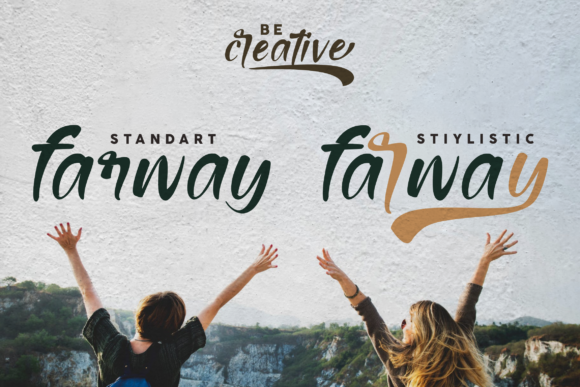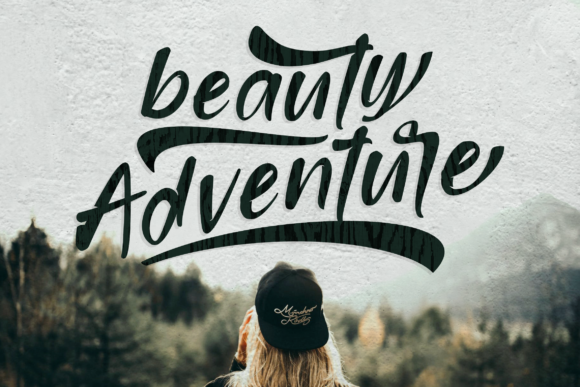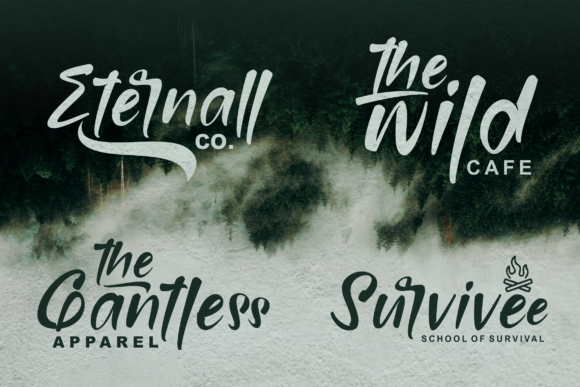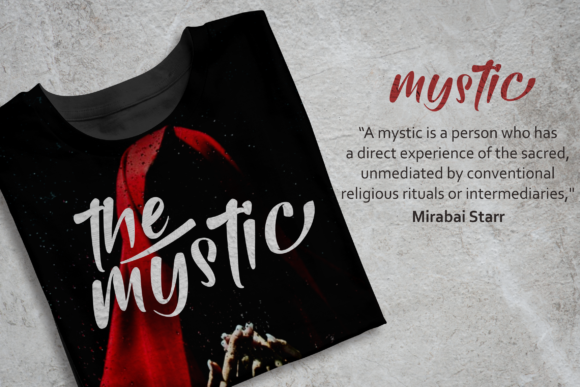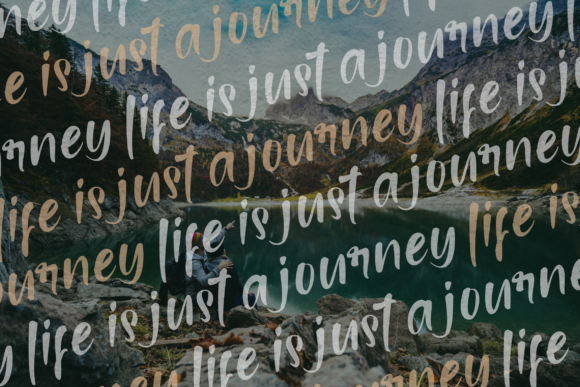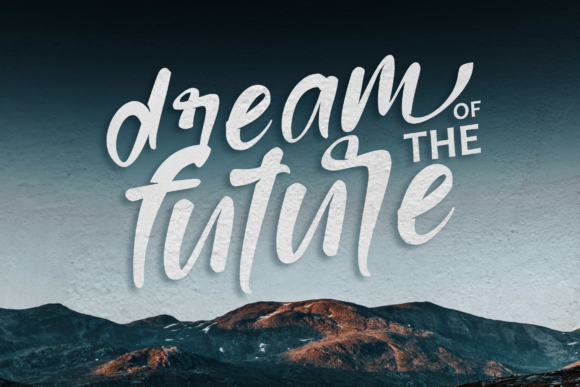
Bridamount Font: Elevate Your Design with a Smooth and Charming Handwritten Style
In the world of typography, fonts play a crucial role in bringing a design to life. A well-chosen font can instantly elevate the aesthetic appeal of a project, making it more engaging and memorable. If you’re a designer or crafter looking for a font that exudes adventure and sophistication, look no further than Bridamount. This smooth and charming handwritten font is sure to add a touch of magic to any design project.
The Unique Charm of Bridamount
Bridamount is a beautifully crafted font that boasts an incredibly smooth and charming feel. Its handwritten style gives it a personal and organic look, making it perfect for designs that require a touch of warmth and personality. The font’s unique charm lies in its ability to balance elegance with a sense of adventure, making it suitable for a wide range of design projects.
Key Features of Bridamount
- Smooth and fluid lines: Bridamount’s smooth lines give it a luxurious feel, making it perfect for high-end designs.
- Charming handwritten style: The font’s handwritten style adds a personal touch to any design, making it more relatable and engaging.
- Adventure-inspired: Bridamount’s unique charm makes it perfect for designs that require a sense of adventure and exploration.
- Highly versatile: The font is suitable for a wide range of design projects, from branding and packaging to posters and social media graphics.
Use Cases for Bridamount
- Branding and identity: Use Bridamount to create a unique and memorable brand identity that stands out from the crowd.
- Packaging design: Add a touch of elegance and sophistication to your packaging designs with Bridamount.
- Poster design: Create eye-catching posters that grab attention with Bridamount’s bold and adventurous style.
- Social media graphics: Use Bridamount to create engaging social media graphics that resonate with your audience.
Tips for Using Bridamount Effectively
- Pair it with contrasting fonts: Pair Bridamount with contrasting fonts to create visual interest and hierarchy.
- Experiment with colors: Try out different colors to find the perfect match for your design.
- Play with font sizes: Experiment with different font sizes to create visual hierarchy and emphasis.
In conclusion, Bridamount is a smooth and charming handwritten font that is sure to add an adventurous touch to any design project. Its unique charm, smooth lines, and highly versatile nature make it perfect for a wide range of design applications. Whether you’re a designer or crafter, Bridamount is a font that is sure to inspire and elevate your designs.